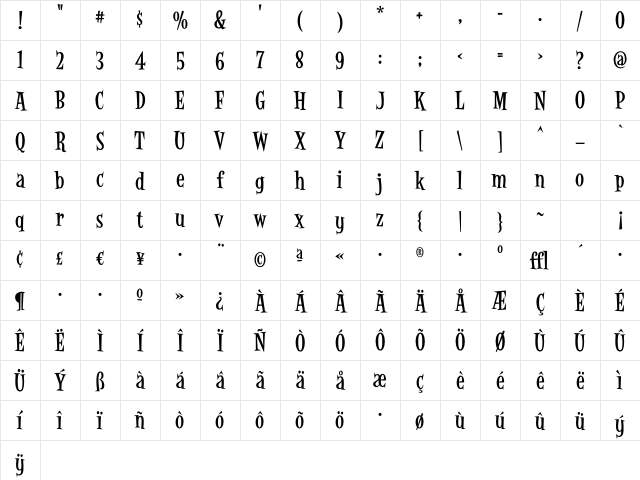
Latino Rumba
Style: Rumba
Latino Family
Complete Latino Rumba glyph index. Displaying only characters natively supported by Latino Rumba font.
Design Context for Latino
Latino is a composed and adaptable typeface that performs quietly and consistently across a wide range of design contexts.
Pro Tip: Use Latino in both headline and body roles to test its range before committing to a single application.